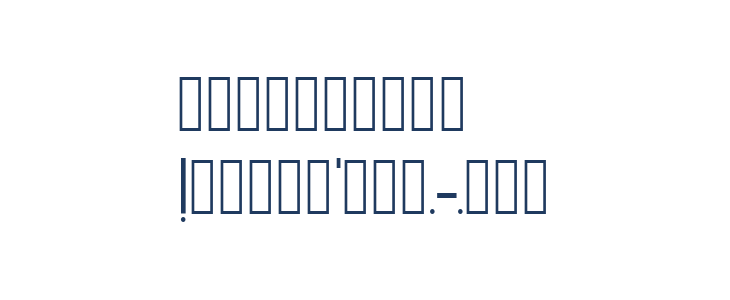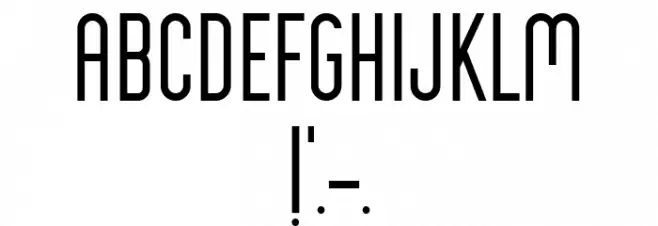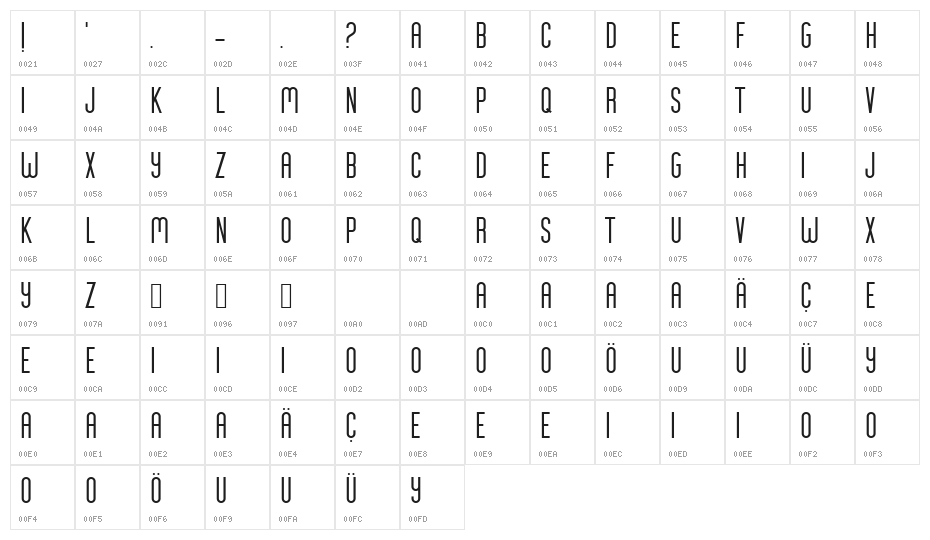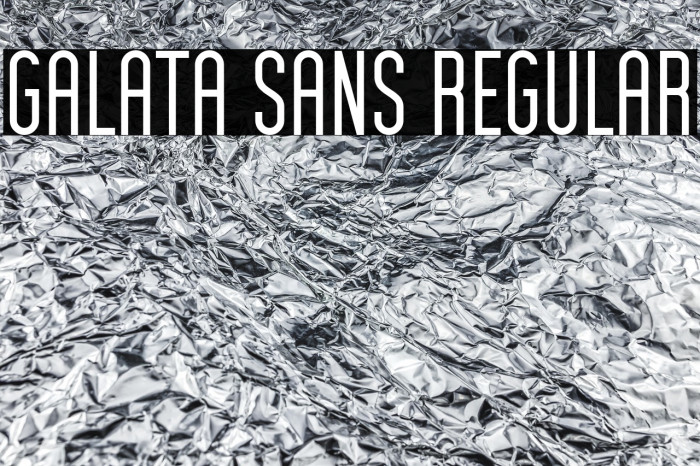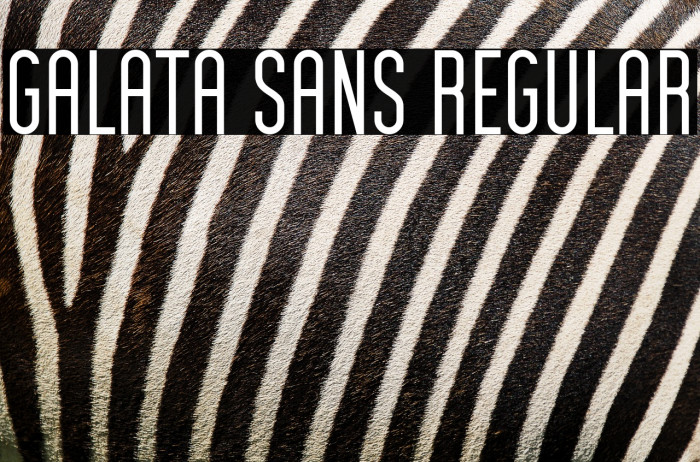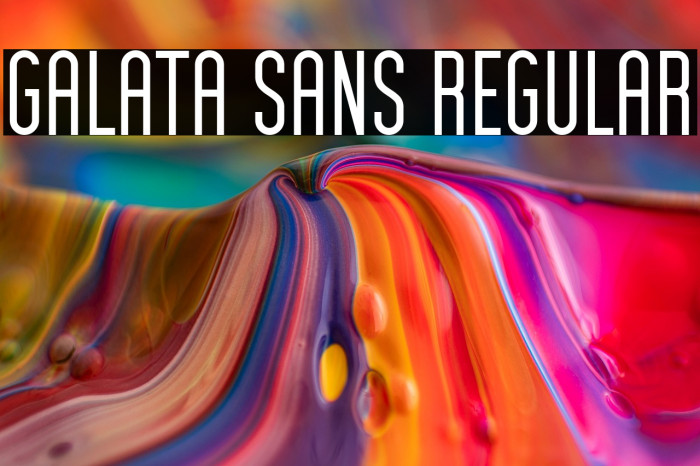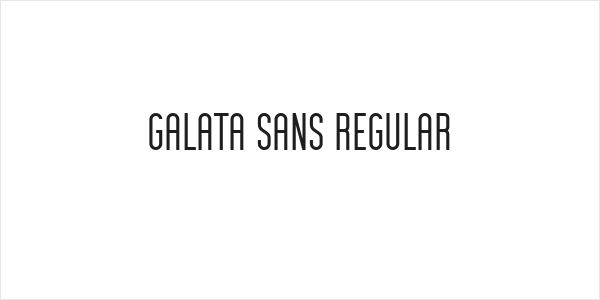
Galata Sans Regular Font
Galata Sans Regular Description
This font features a clean and modern sans-serif design with a geometric structure. The characters are tall and narrow, giving it a condensed appearance. The strokes are consistent in width, providing a uniform look across all letters. The uppercase and lowercase letters maintain a similar height, enhancing readability. The font's minimalistic style makes it versatile for various design applications. It includes a basic set of punctuation marks, ensuring it can be used for both display and text purposes.